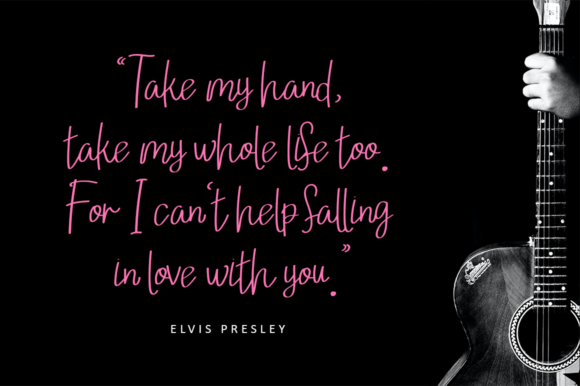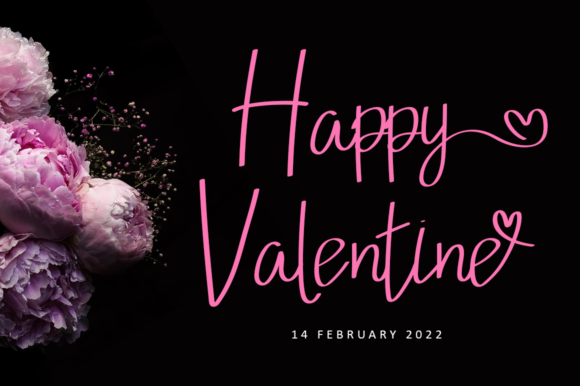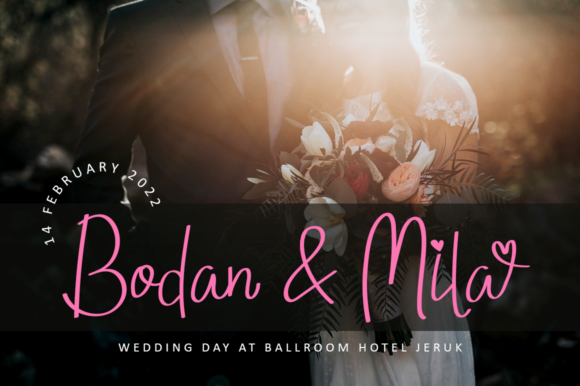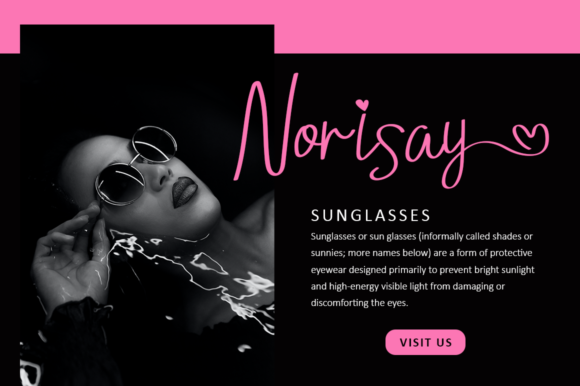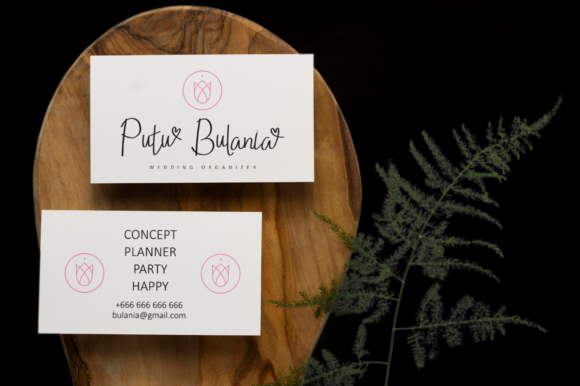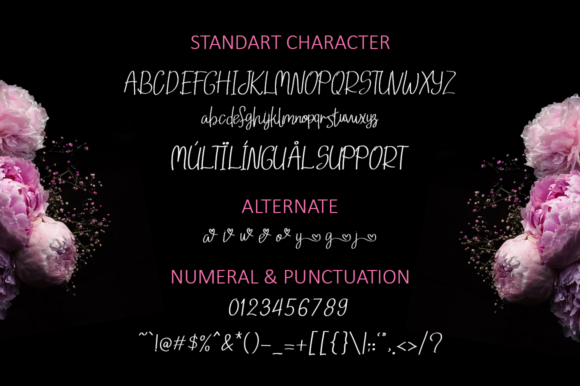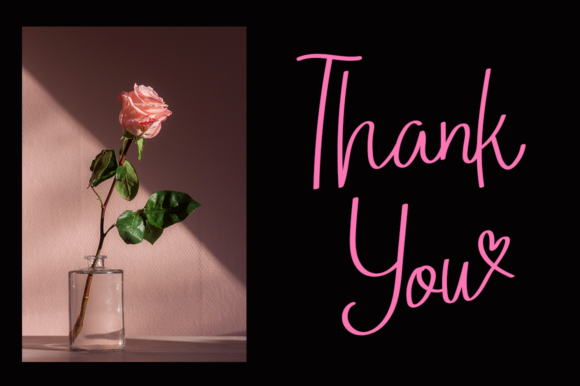
Loving February Font
About Loving February Font
Loving February is a lovely script font featuring charming, playful characters. Add this font to your most creative ideas for Valentine days projects, and notice how it makes them love designs to stand out!